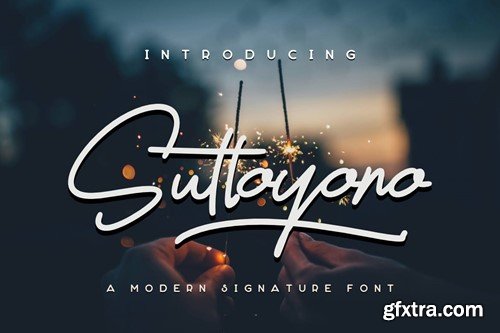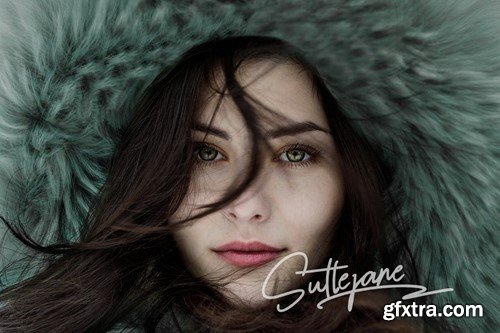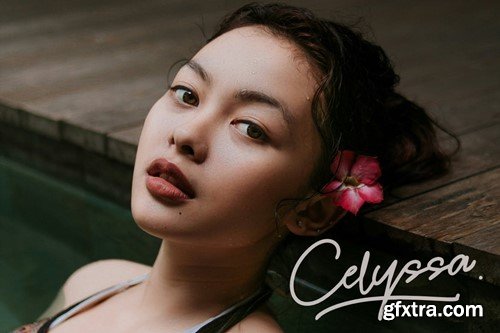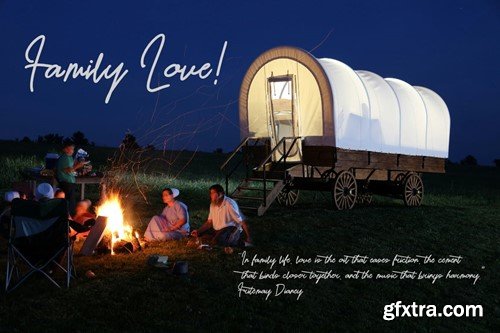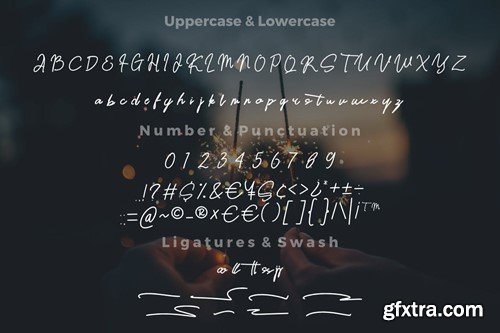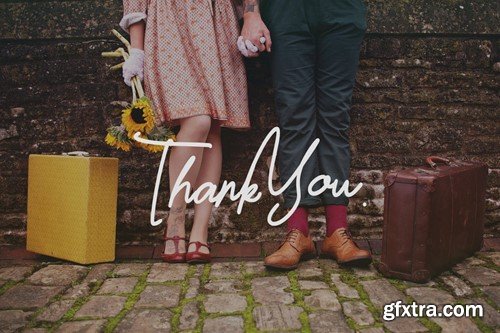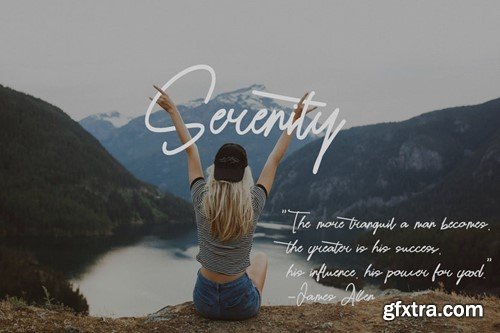
Suttoyono Modern Signature Font WSR3AMB
Suttoyono Modern Signature Font
Suttoyono Modern Signature Font, This font is made with a high premium quality level which you can use as flyers, quotes, posters, banners, packaging, merchandise, logotypes and much more.